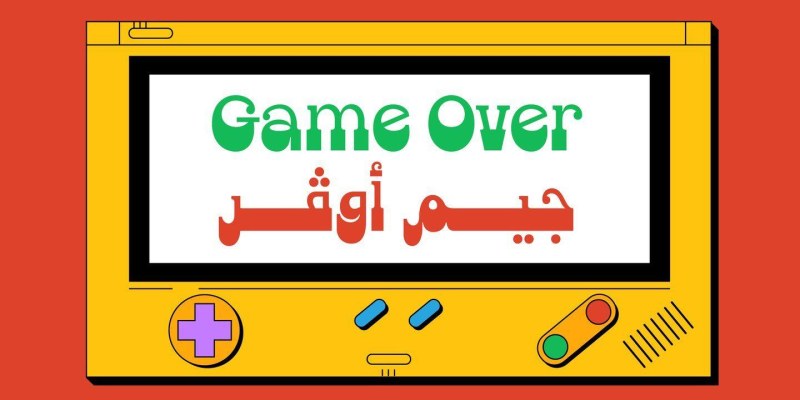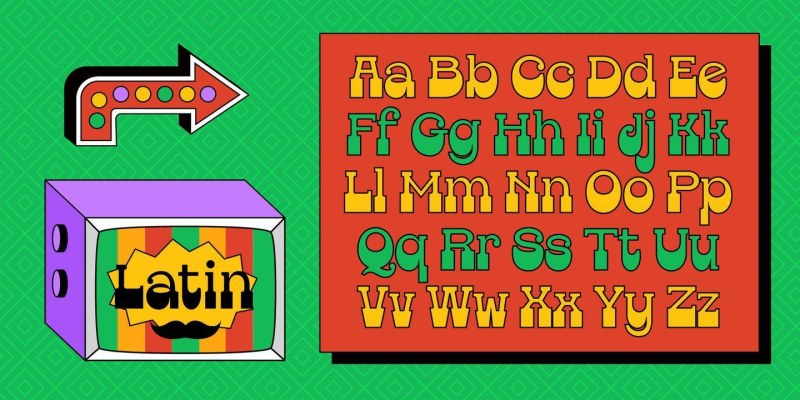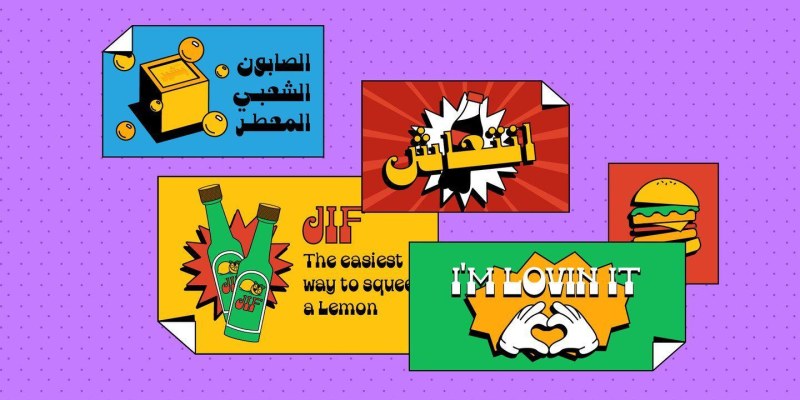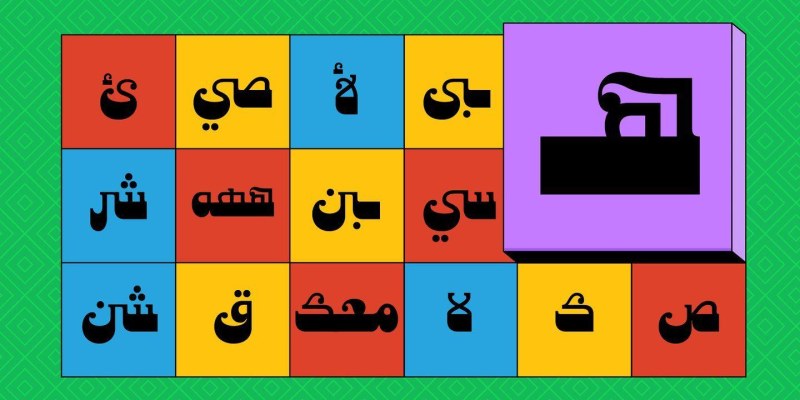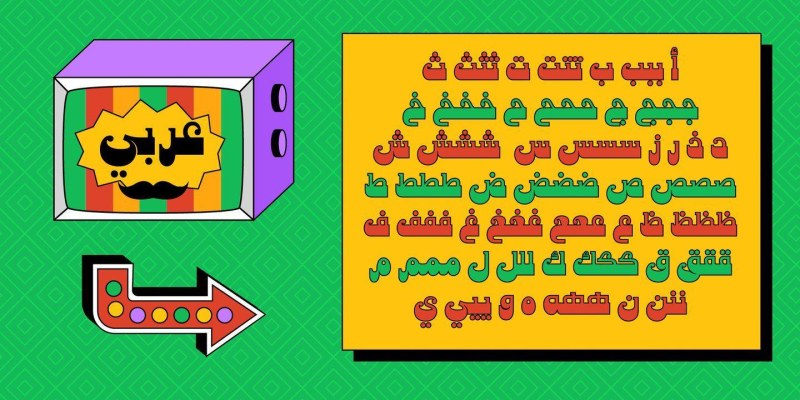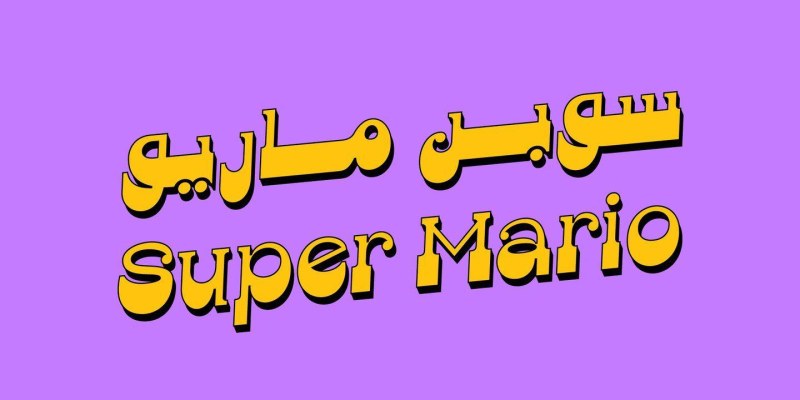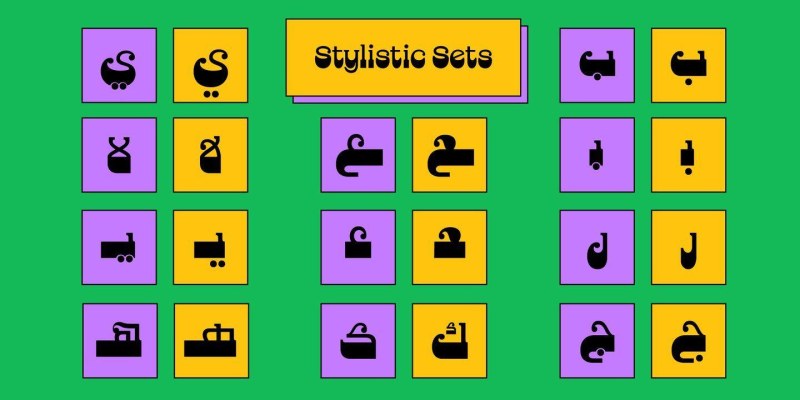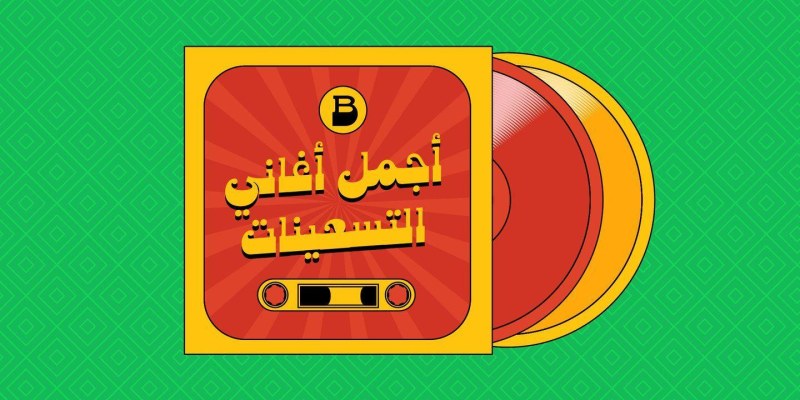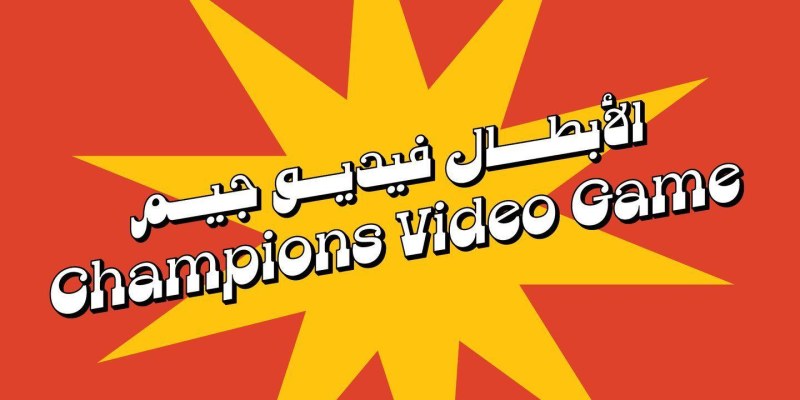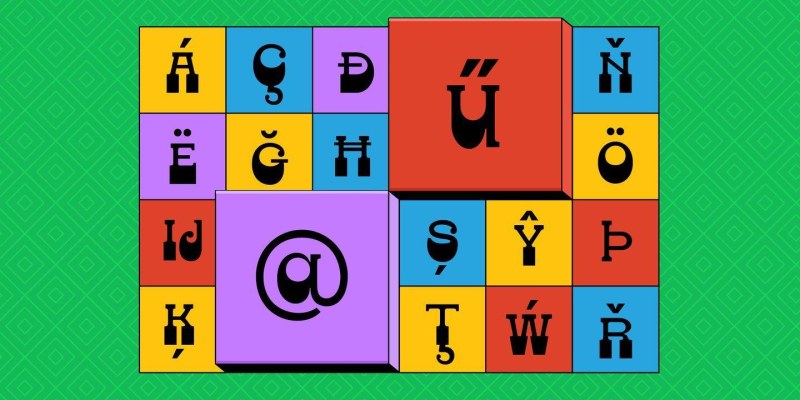
Shareb Pro Arabic Font
Shareb font was initially designed with a different style compared to other Arabic typefaces. It was released as a free display typeface and went popular. Therefore, we…
Shareb font was initially designed with a different style compared to other Arabic typefaces. It was released as a free display typeface and went popular. Therefore, we decided to take it to the next level. Accordingly, we worked on the Arabic letters again, enhancing and fixing them. We also added new features like stylistic sets, ligatures, and a complete Latin set of letters so that the font can be used in the most needed languages. Now, we have a more professional, refined, and larger display typeface that can be used in more great projects.
Where Shareb Pro Arabic Font works best
Arabic branding & signage
Shareb Pro Arabic Font supports Arabic-script identities, storefront signage and packaging across the MENA region.
Editorial & publishing
Suitable for Arabic magazines, book covers and cultural event posters.
Bilingual design
Pair Shareb Pro Arabic Font with a Latin sans for bilingual websites, menus and campaigns.
What is Shareb Pro Arabic Font good for?